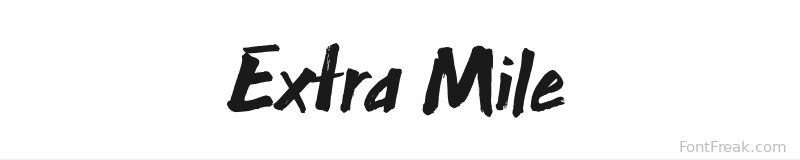
Extra Mile
Extra Mile by BLKBK Fonts is a stylish handwritten font that captures the essence of creativity and individuality. With its expressive strokes and casual elegance, this font brings a personal touch to any design project. The visual characteristics of Extra Mile showcase a playful yet sophisticated approach, featuring a medium stroke weight that balances well with varying contrast. The slightly irregular spacing adds to its handwritten charm, making it perfect for designs that aim for an authentic feel.
This font excels in a variety of use cases, making it a versatile choice for graphic designers and small business owners alike. It shines in wedding invitations, where its whimsical style can beautifully convey love and celebration. Additionally, Extra Mile is an excellent choice for restaurant menus, giving a warm and inviting appearance that can highlight the culinary experience. Movie posters also benefit from its unique character, as it can evoke emotion and curiosity in the audience. Content creators will find this font perfect for social media graphics, where its distinctiveness can help grab attention and engage viewers.
The target audience for Extra Mile includes graphic designers, small business owners, and content creators looking for a font that stands apart from the crowd. Its freeware licensing makes it accessible for various creative projects, whether personal or professional.
What makes Extra Mile truly stand out is its ability to blend a casual, handwritten aesthetic with a polished finish, making it suitable for both formal and informal contexts. The combination of its unique style and versatility ensures that this font will elevate any design project, making it a must-have in your font collection. Don’t miss the opportunity to experience the charm of this delightful typeface with an Extra Mile font free download.